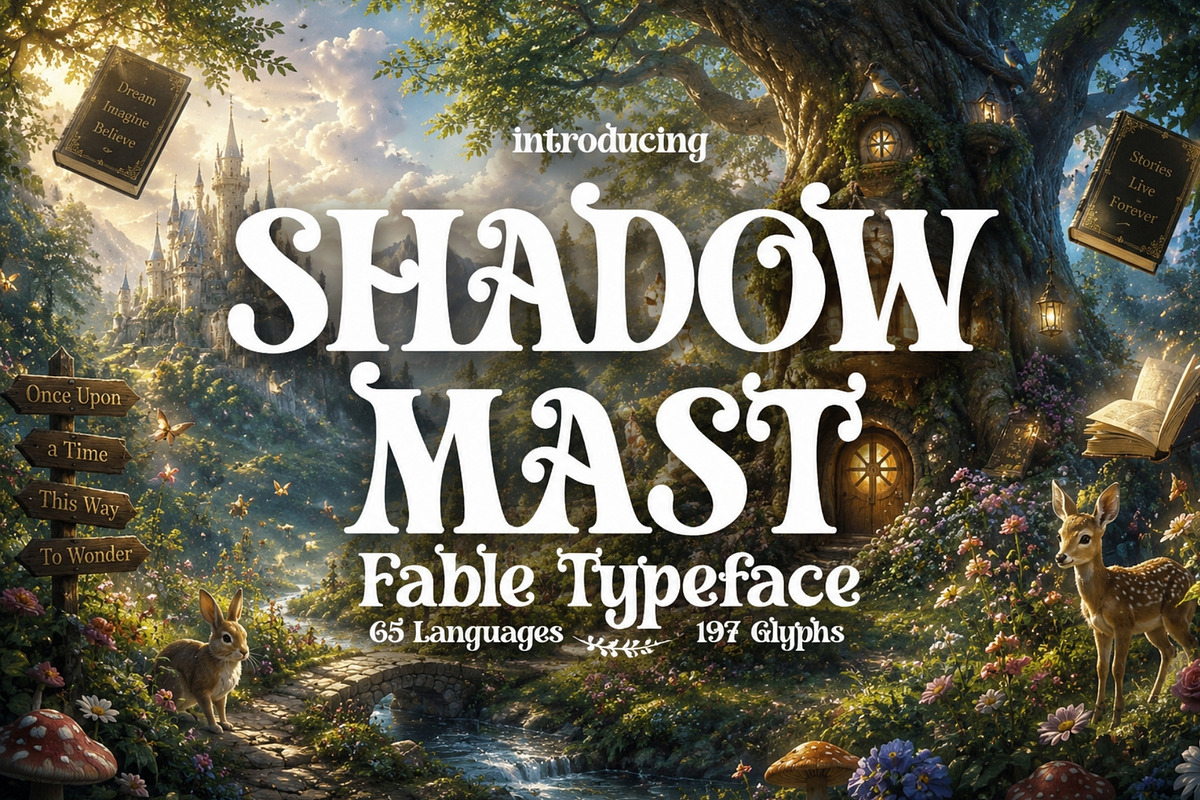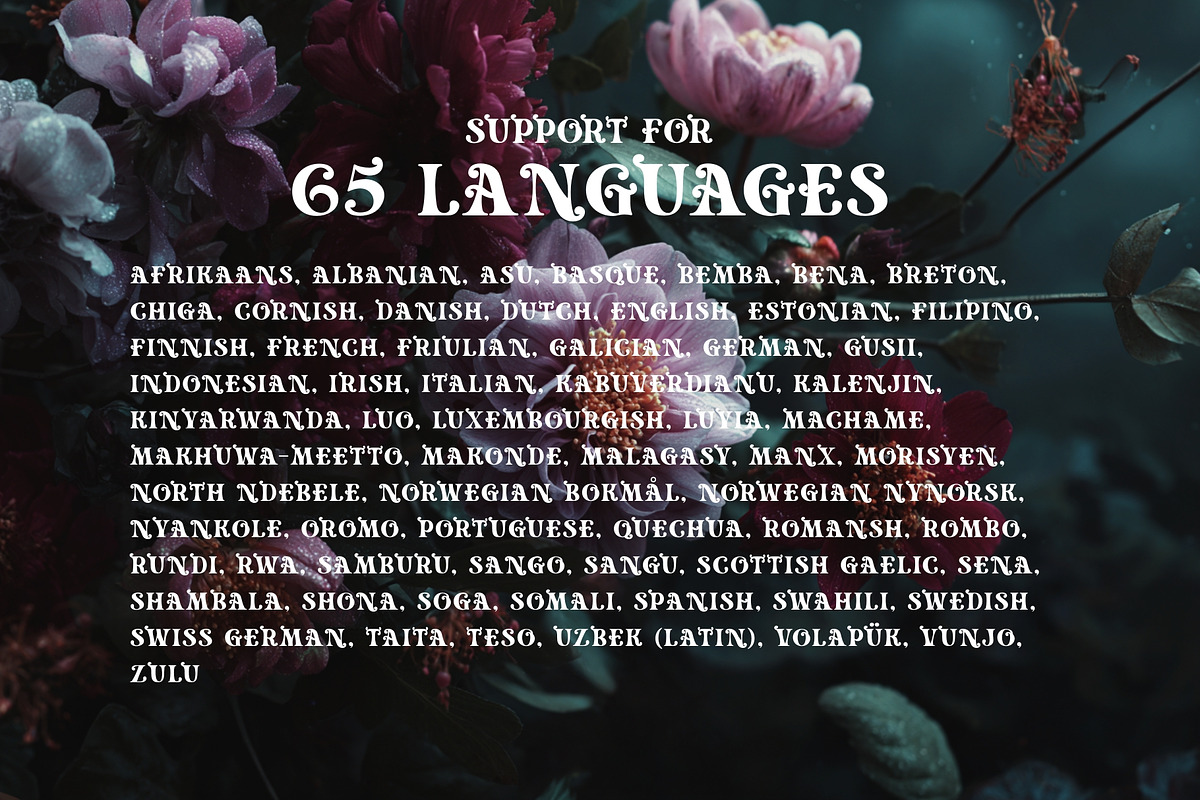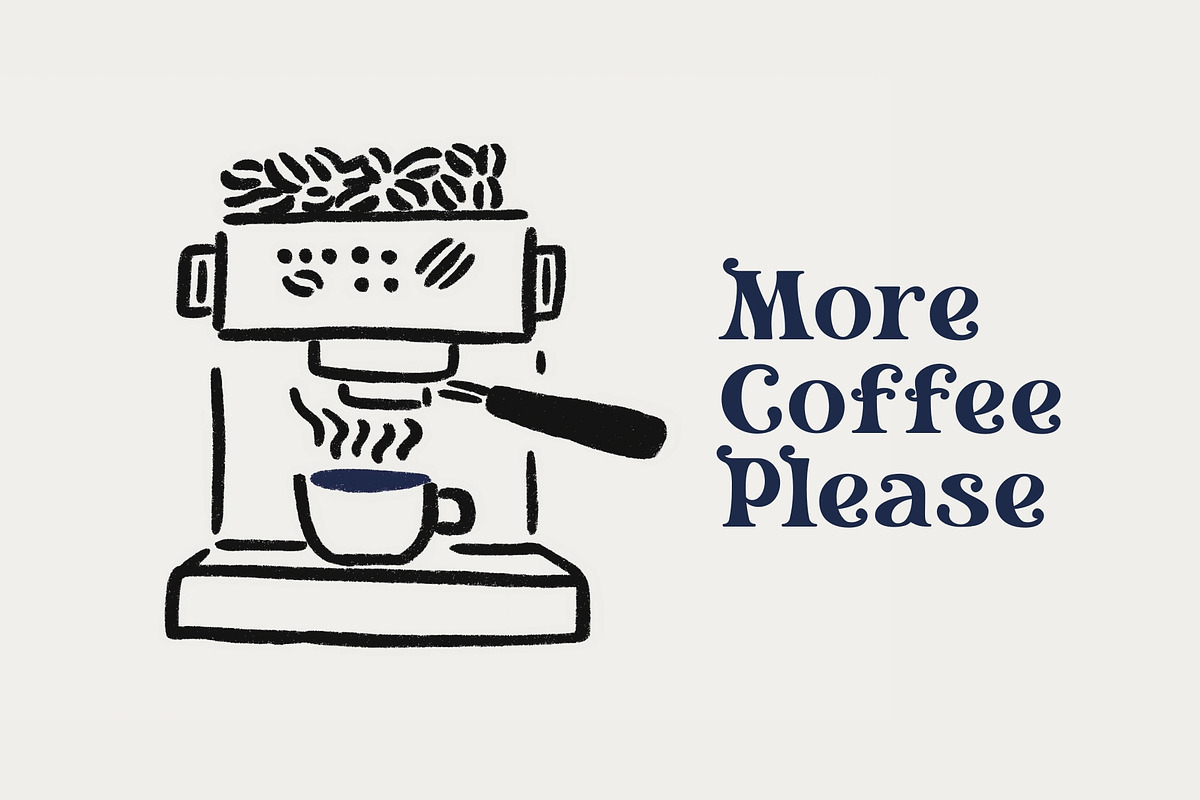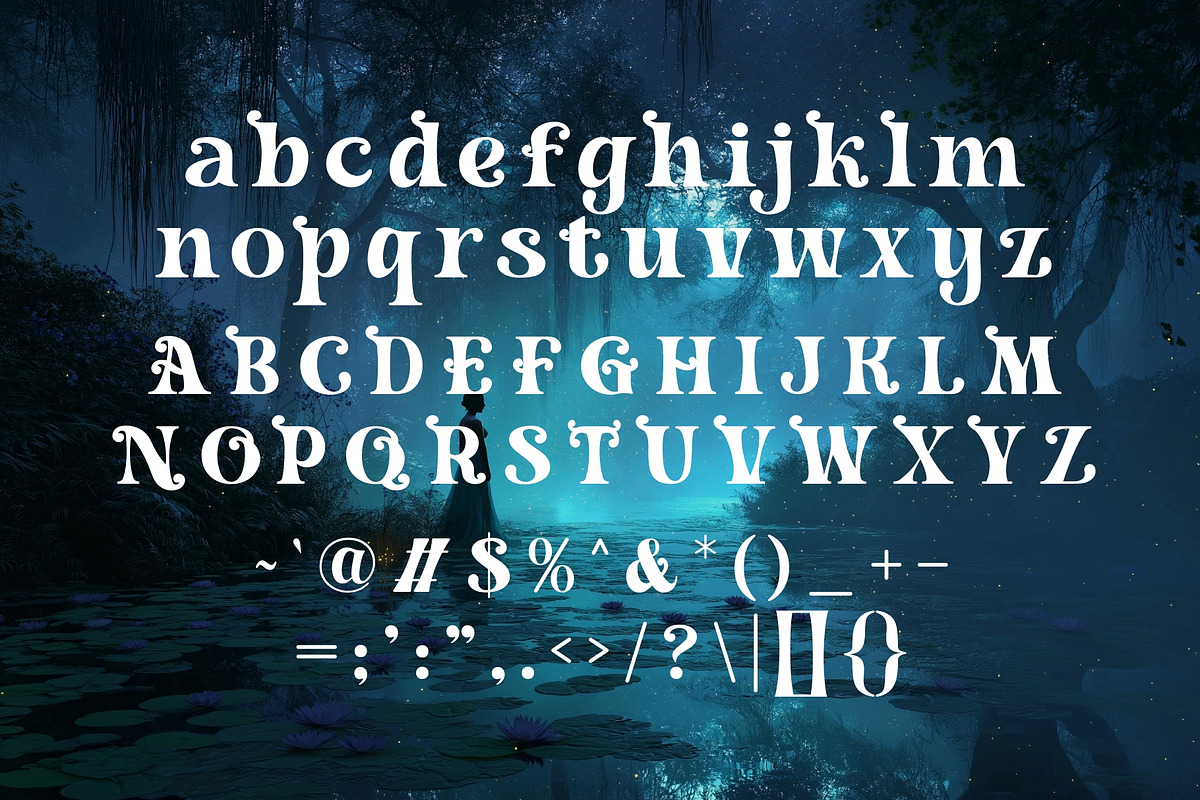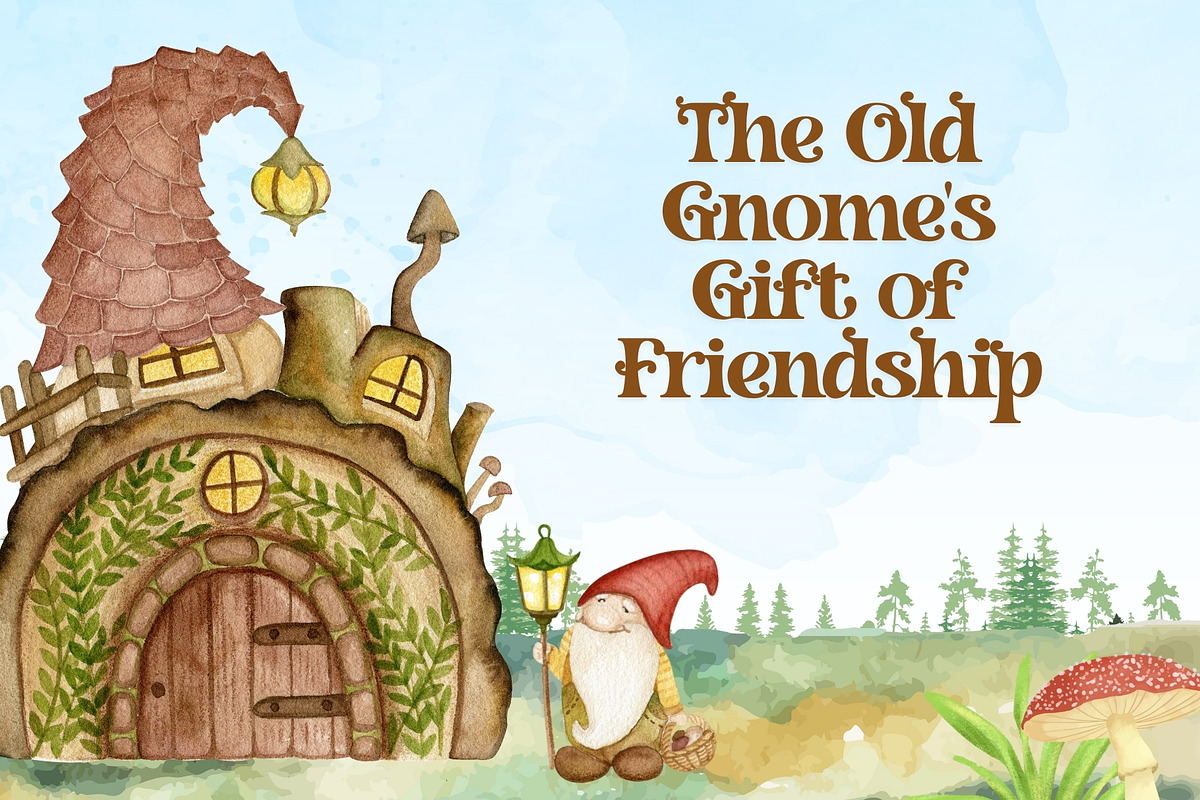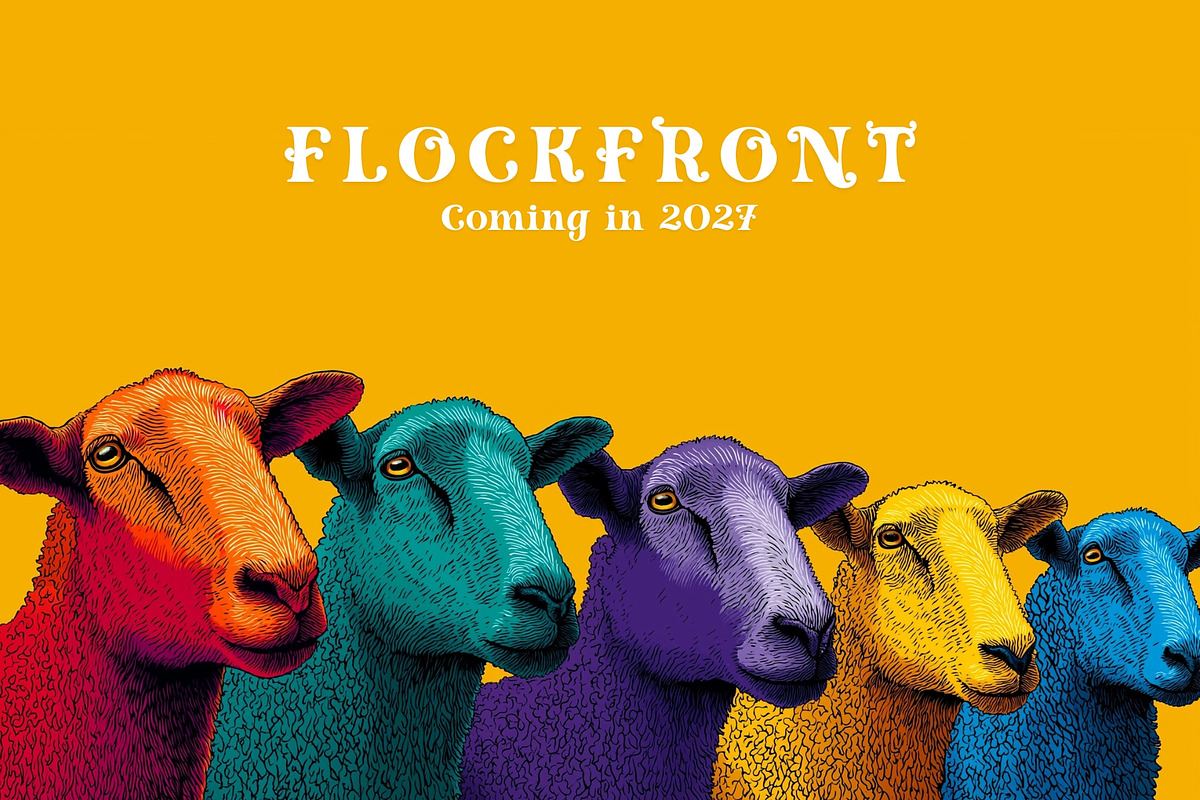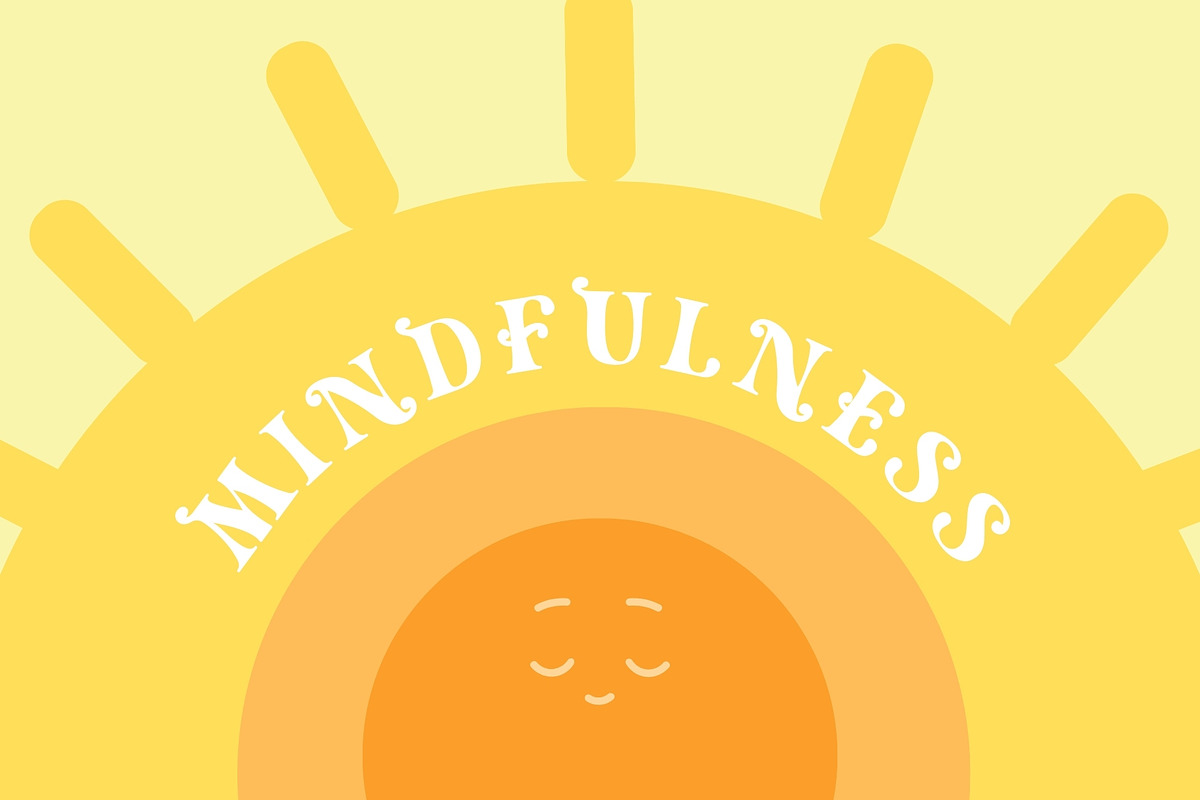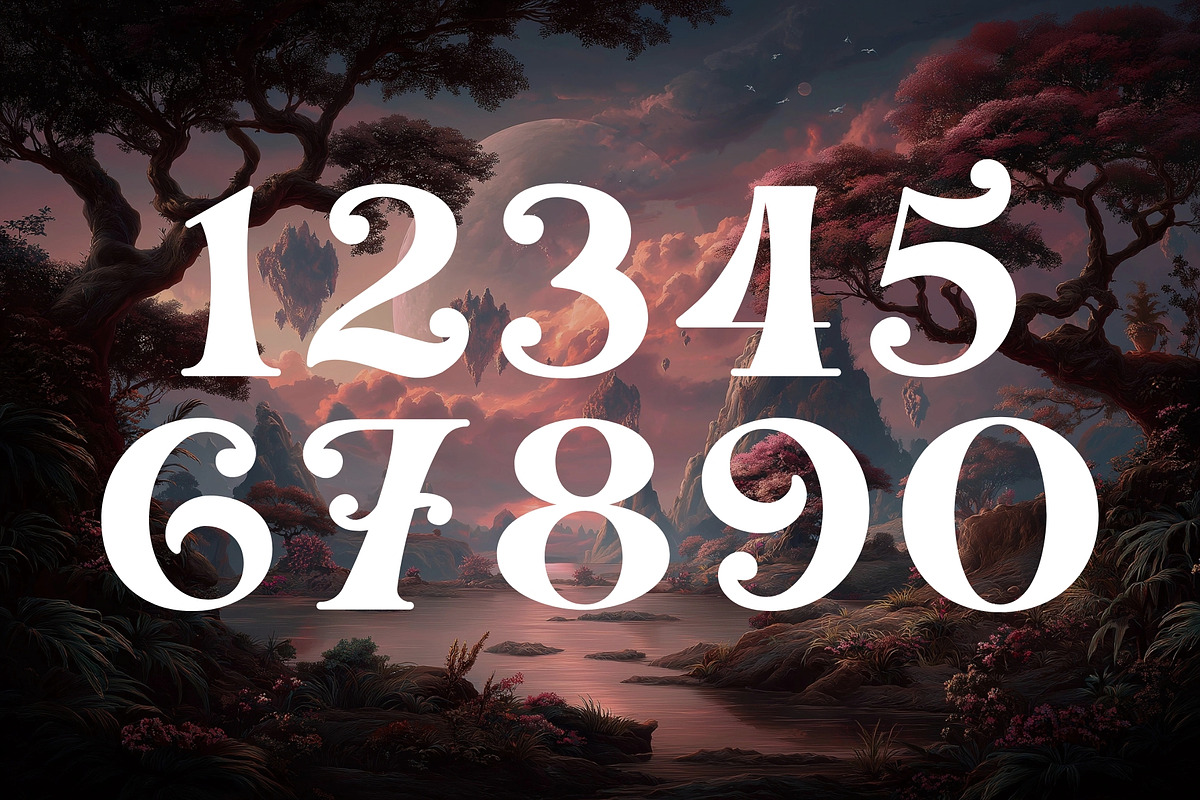
Shadowmast - Whimsical Fable Type
Enter a world of wonder with Shadowmast, a magical serif typeface inspired by fairytales, folklore, and storybook fantasy. With charming curves and gentle serifs that feel hand-crafted and timeless, this typeface brings imagination to life — like pages pulled fresh from a storybook.
Whimsical yet elegant, Shadowmast carries the warmth and enchantment of childhood storytelling. Its soft vintage character and subtle personality make it perfect for projects that need heart, fantasy, and a spark of adventure.
Ideal for children’s books, classroom projects, educational worksheets, story titles, book covers, fairy-inspired branding, scrapbooking, crafts, invitations, posters, and more, Shadowmast enhances creativity with a friendly, nostalgic tone.
From magical forests to bedtime tales to playful classroom design, Shadowmast is the font that makes stories feel like dreams.